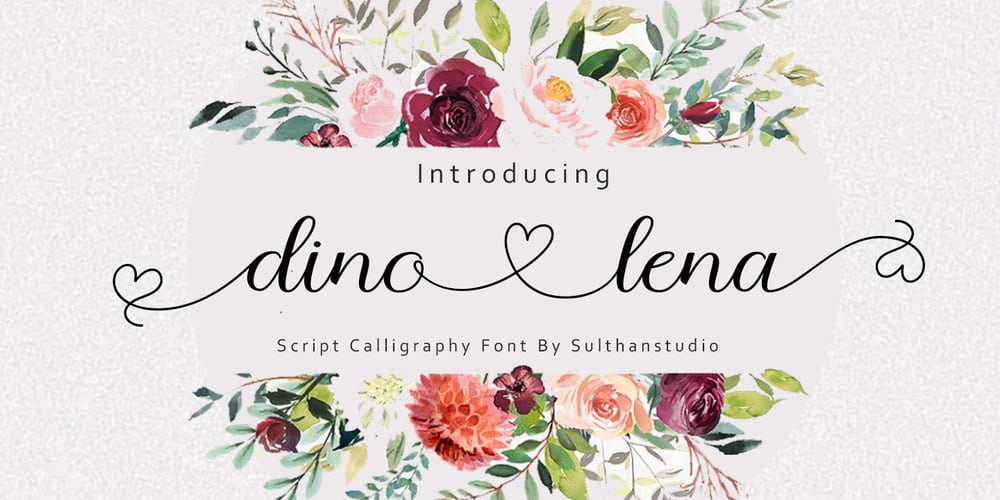
Dino lena
Dino lena font
Dino lena Font Family was designed by Nasrullah and published by Sulthan Studio. Dino lena contains 1 styles and family package options. Dino Lena is a delicate and slim script font. It is perfect for product packaging, branding project, magazine covers, social media, wedding, or just used to express words above the background.This font is PUA encoded which means you can access all of the glyphs and swashes with ease.